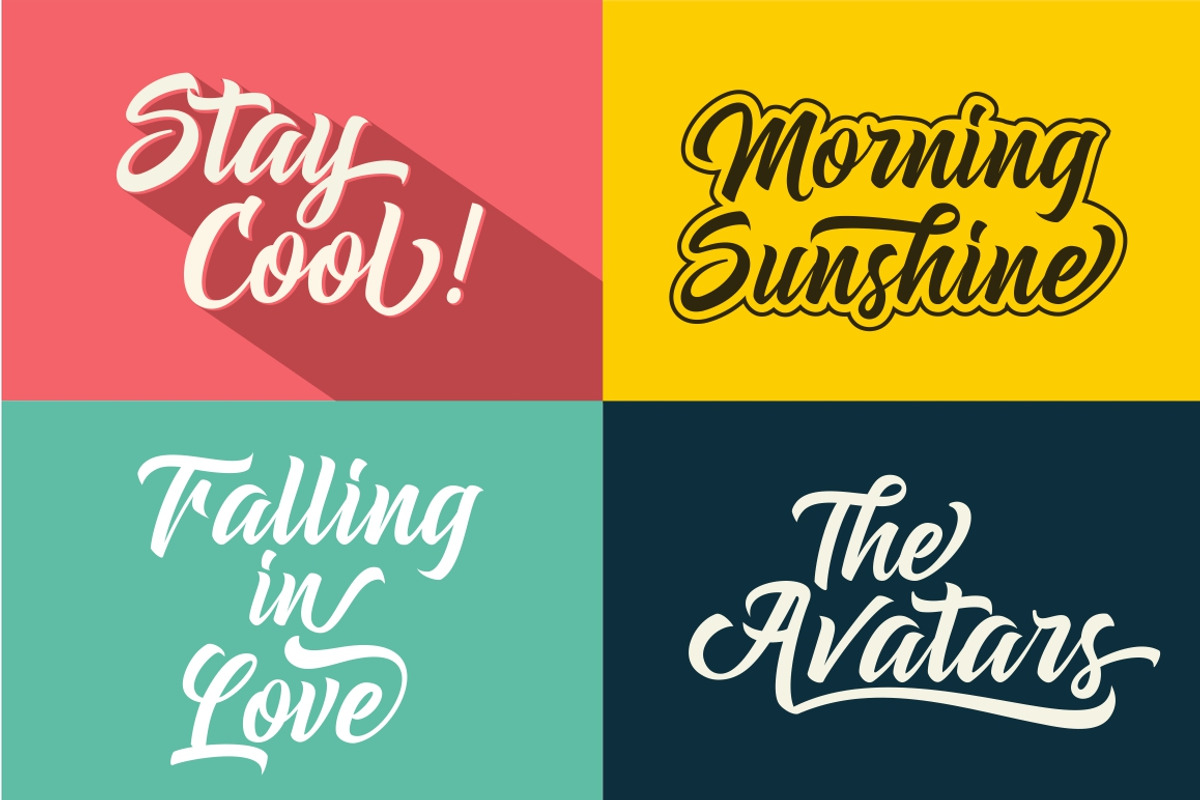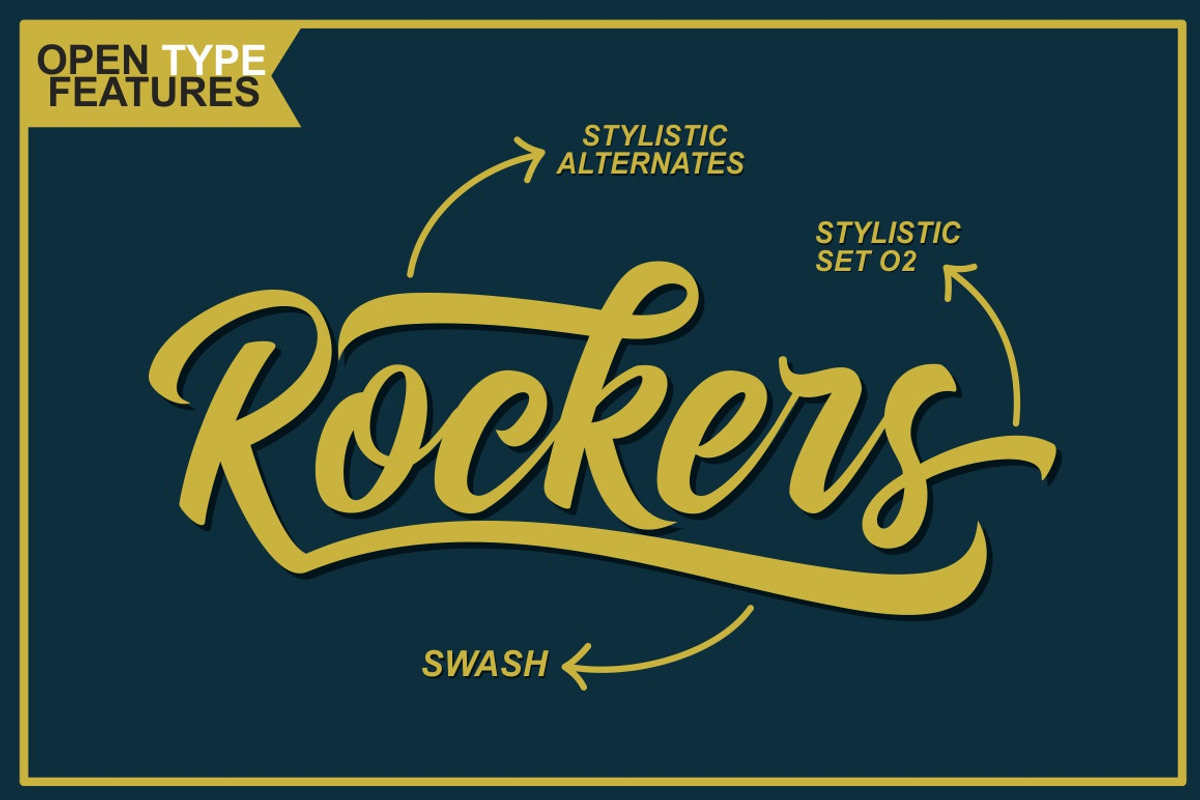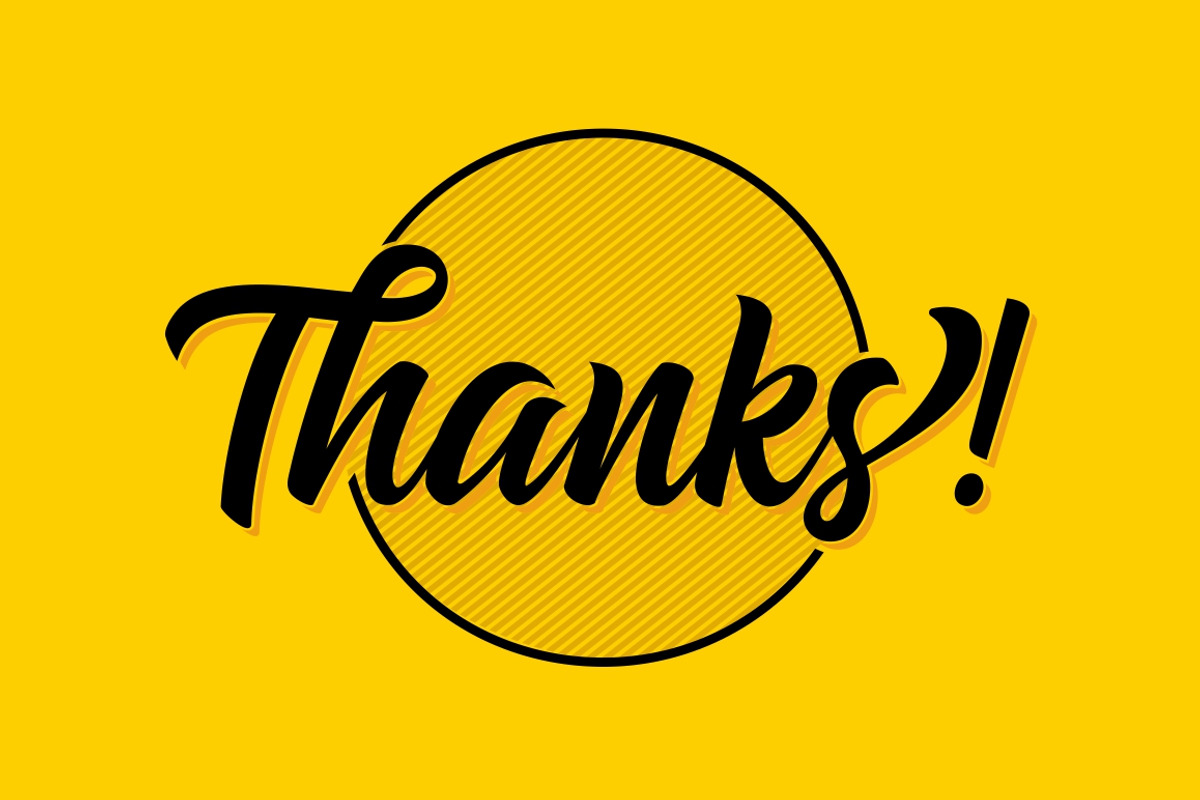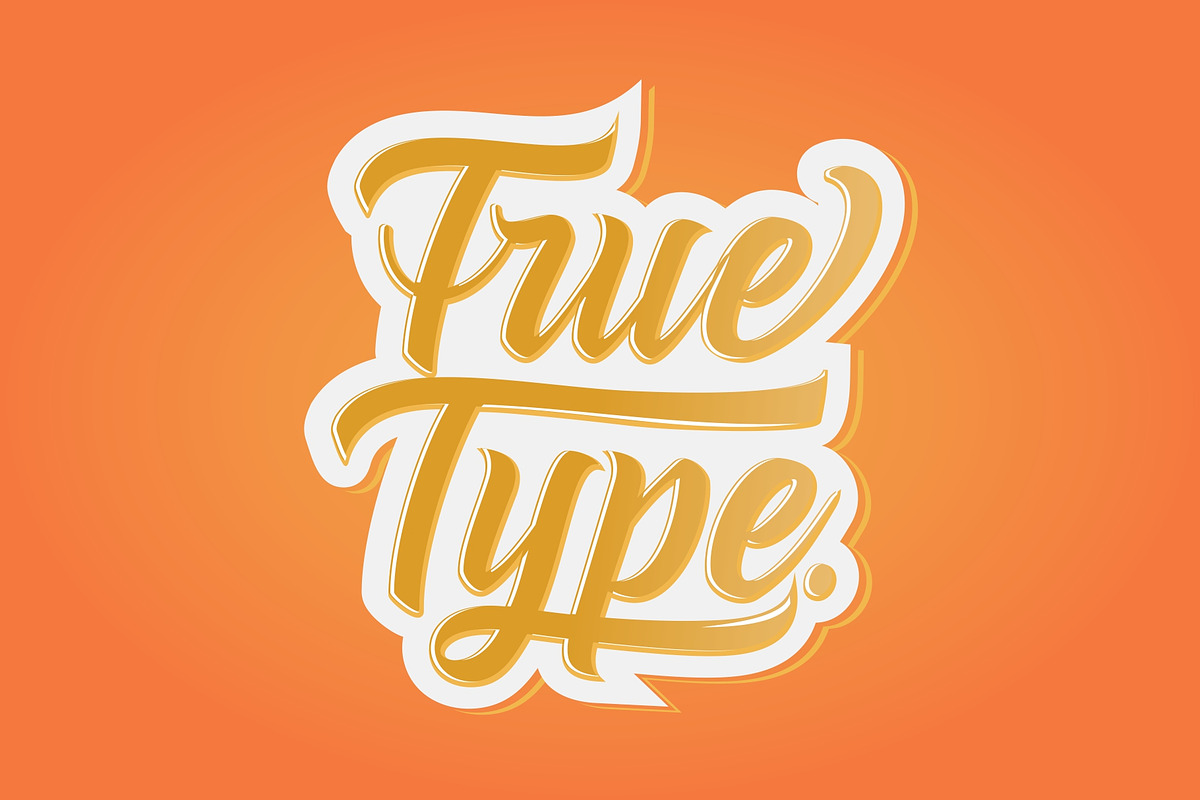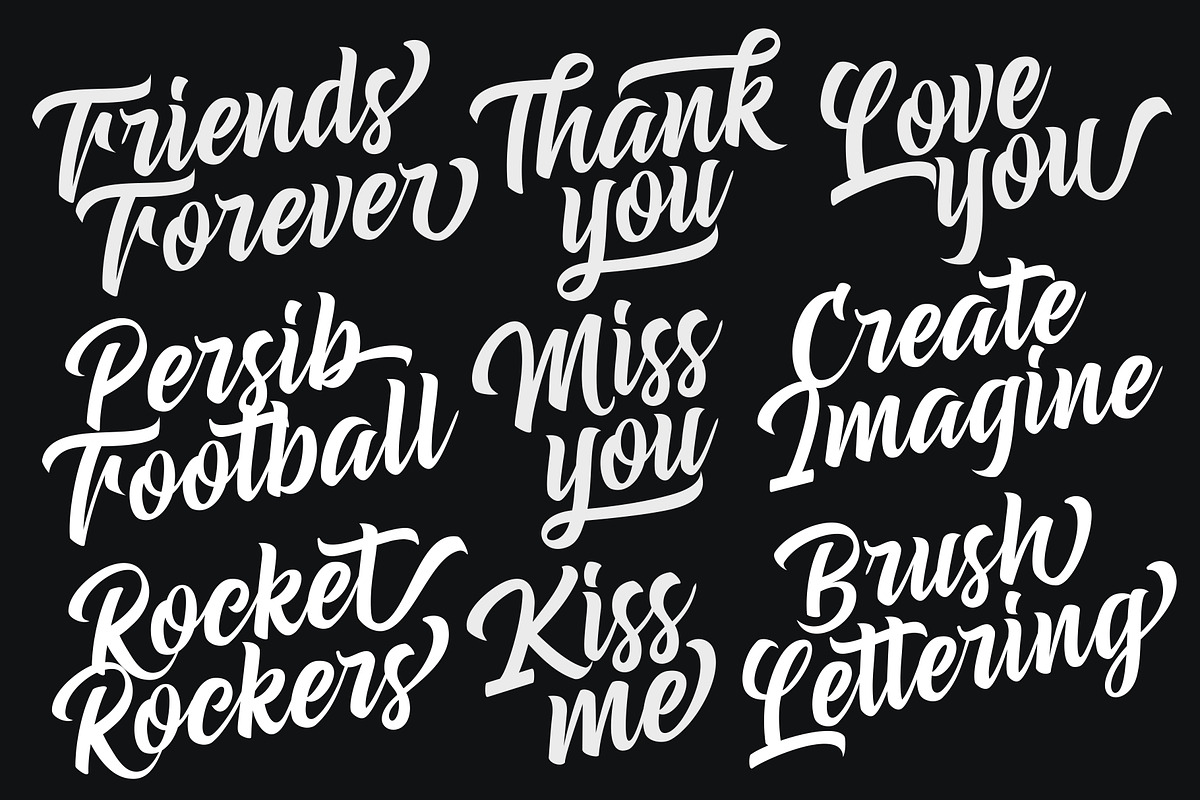
Dear Saturday Font
Dear Saturday Font by HRDR is a font selected for branding, posters, packaging, typography.
- dear saturday also have opentype features (such as stylistic set 01 - stylistic set 03, stylistic alternate, swash, and standart ligature) t
Why Dear Saturday Font is worth a look
Dear Saturday Font by HRDR fits naturally into Branding, posters, packaging, typography.